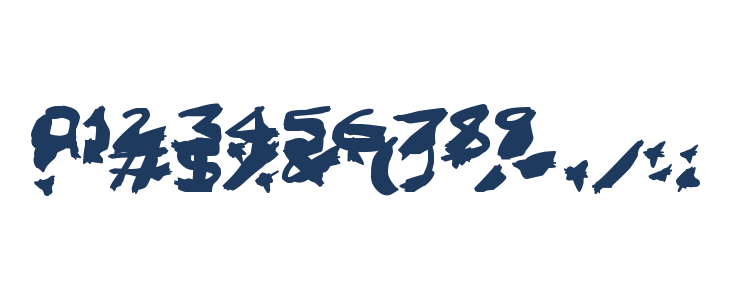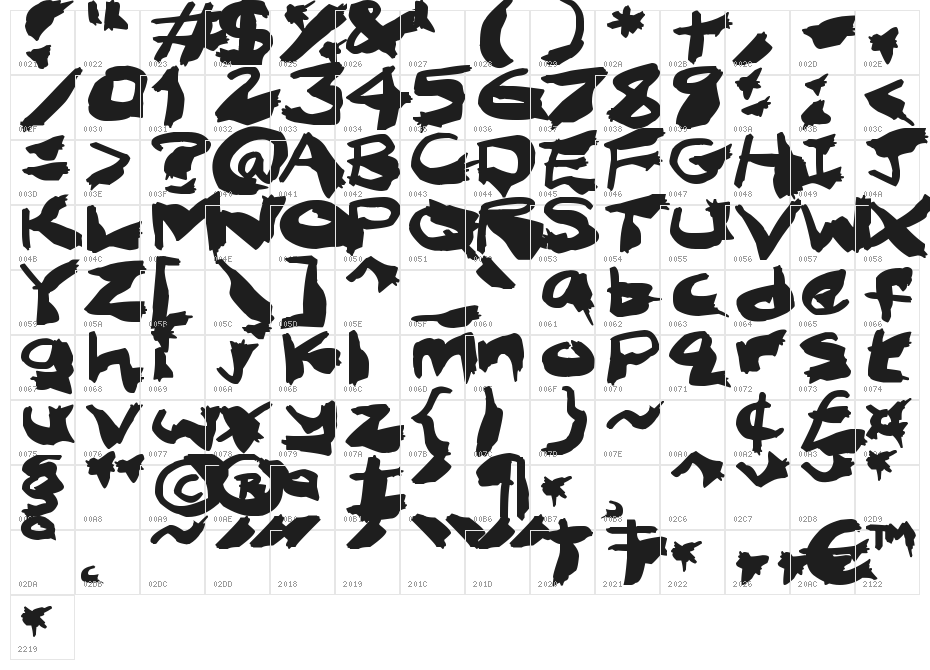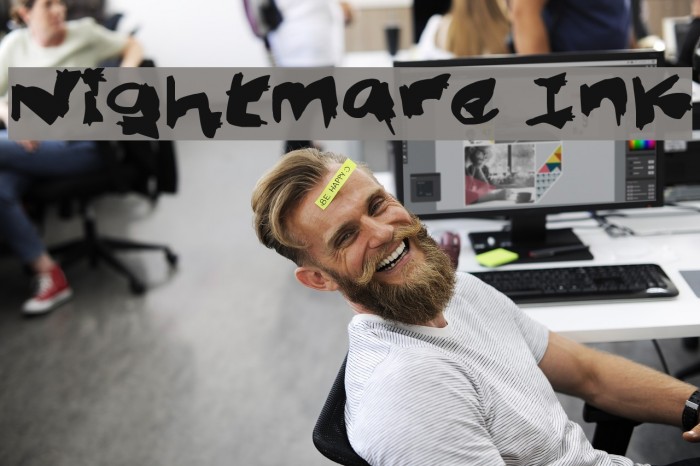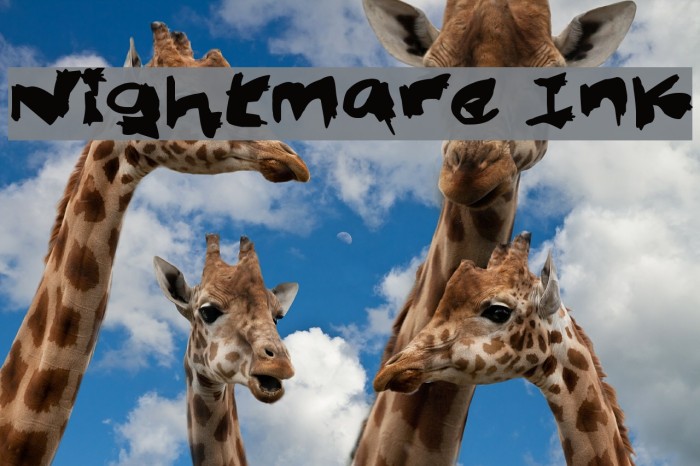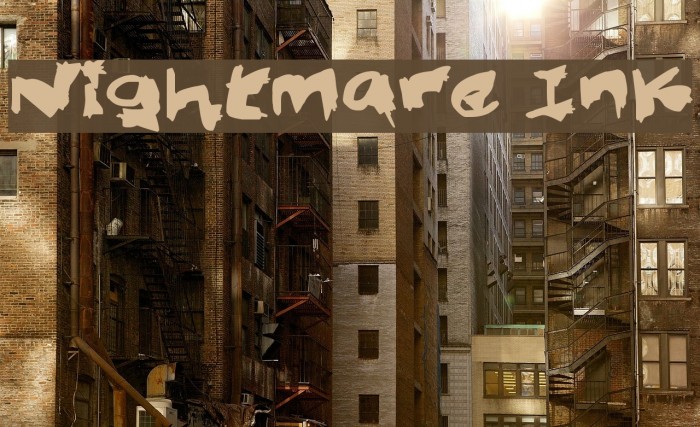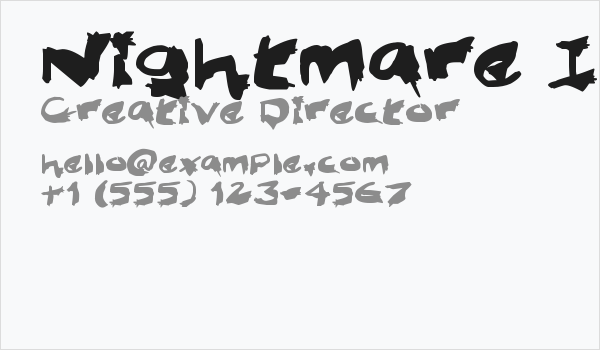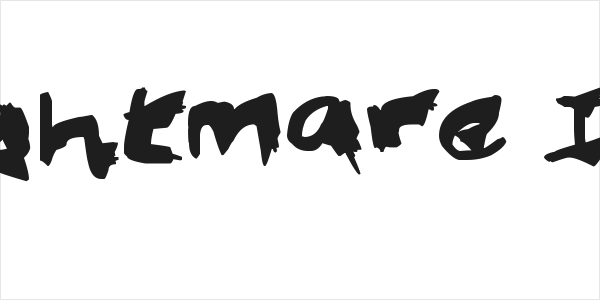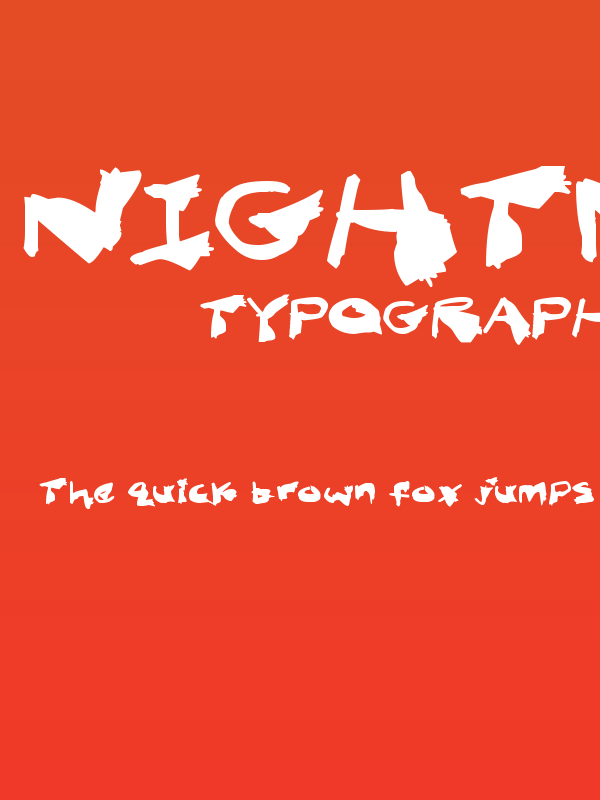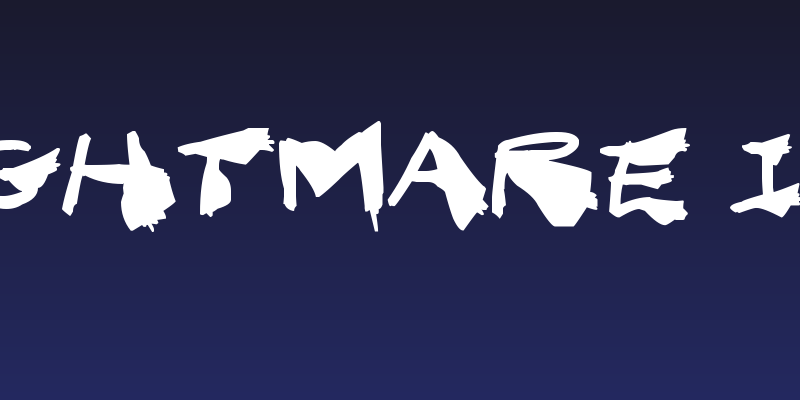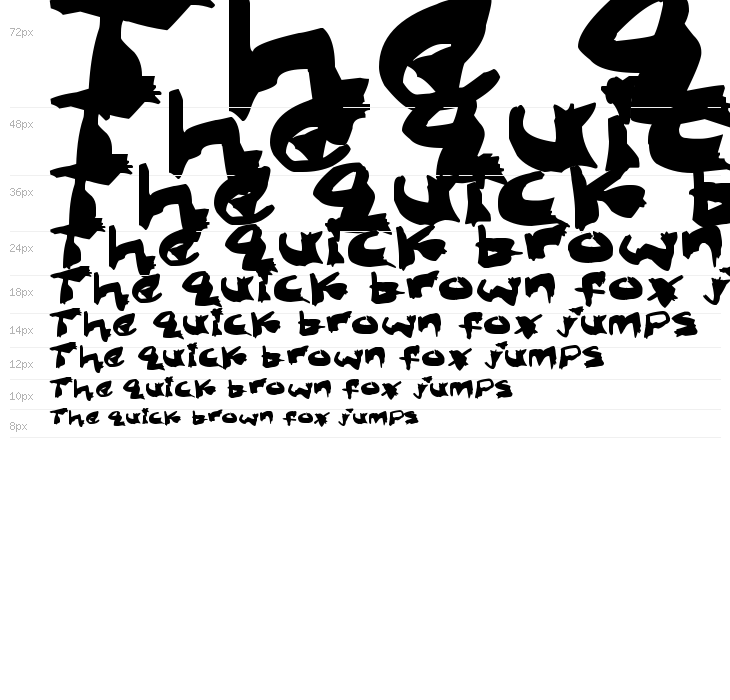
Nightmare Ink Font
Nightmare Ink Description
This font exudes a chaotic and edgy vibe, reminiscent of ink splatters or graffiti. The characters are irregular and jagged, giving an impression of movement and energy. Each letter appears to be uniquely crafted, with varying thickness and angles, creating a sense of unpredictability and rawness. The uppercase and lowercase letters maintain this dynamic style, while the numbers and special characters follow suit with equally bold and expressive forms. This font is perfect for projects that require a dramatic and unconventional look.
| Proposed Projects | Ideal for horror-themed designs, album covers, street art projects, or any creative work needing a bold, rebellious touch. |